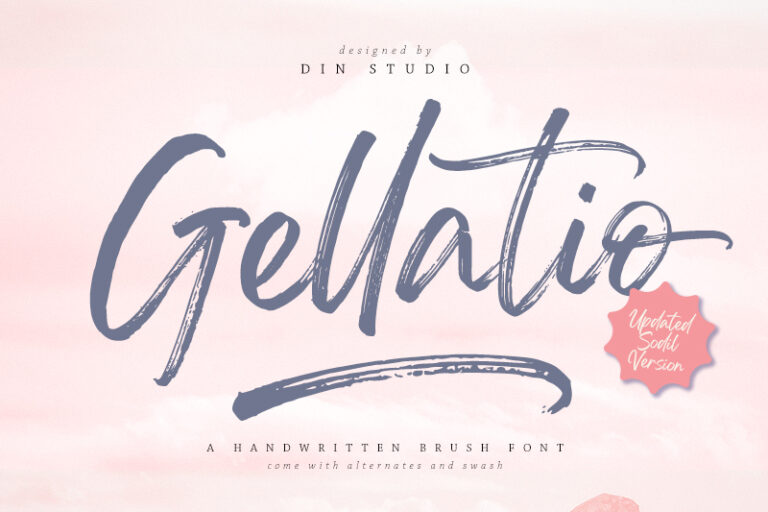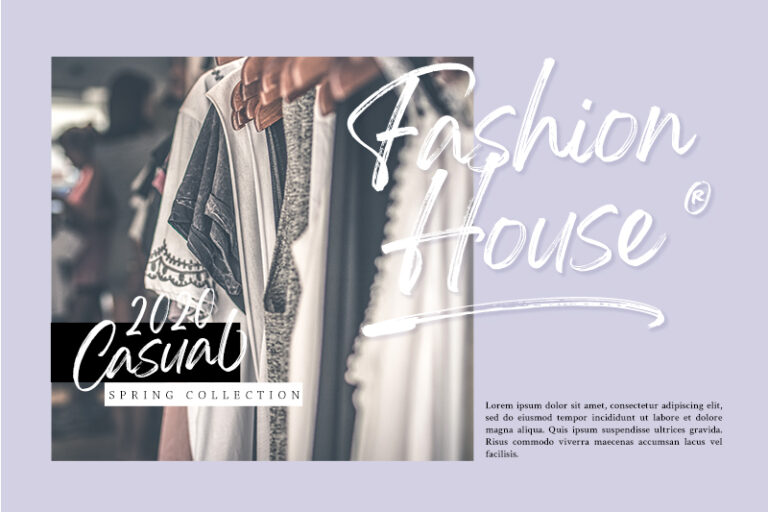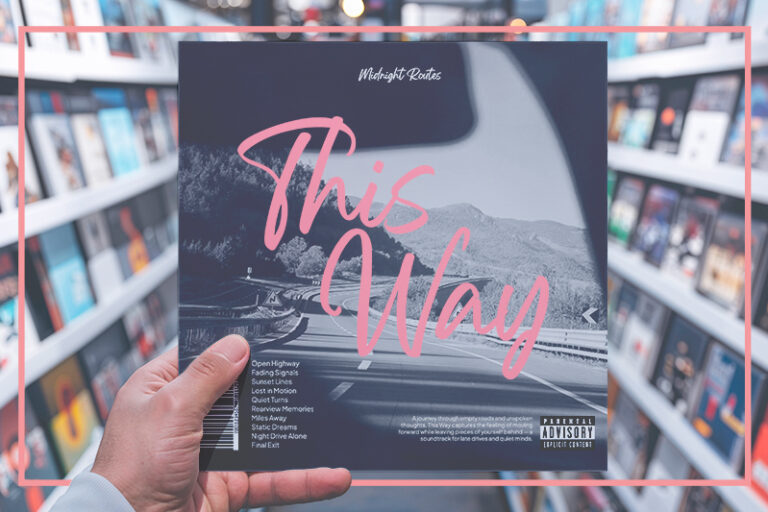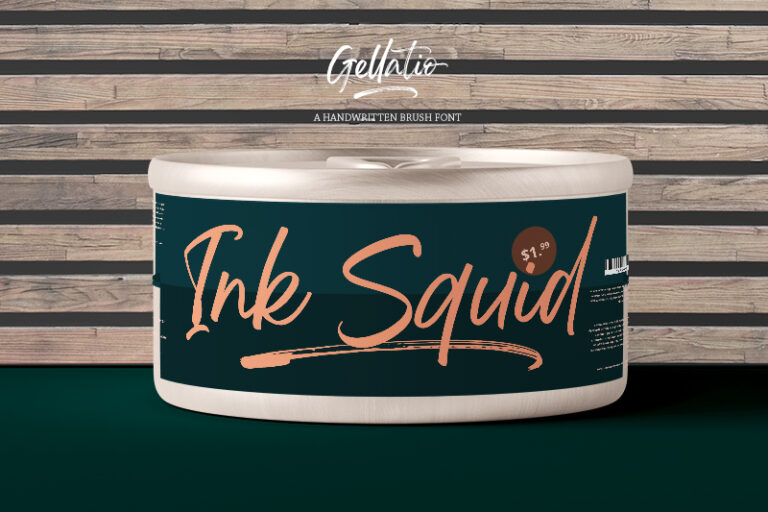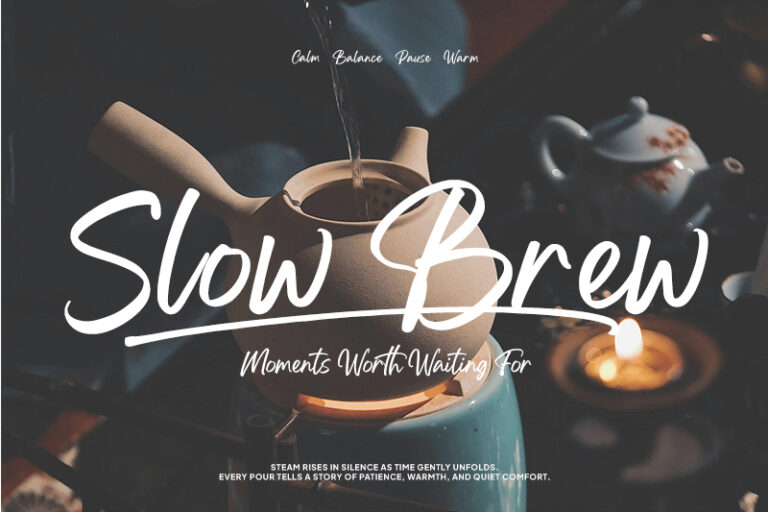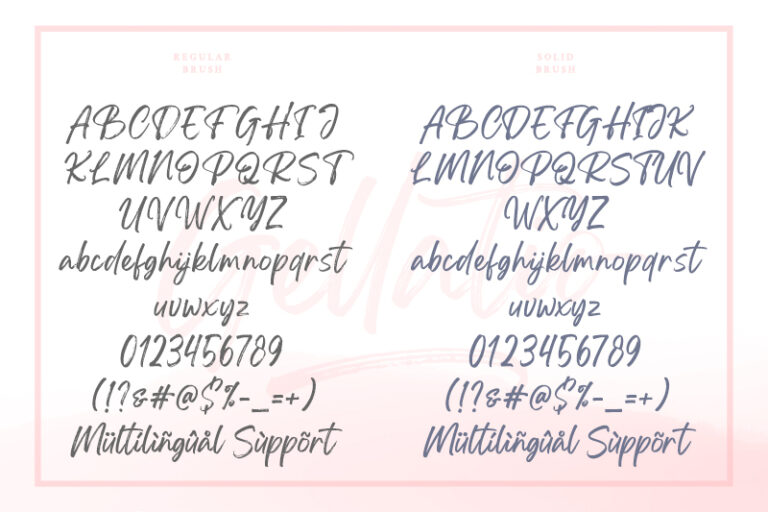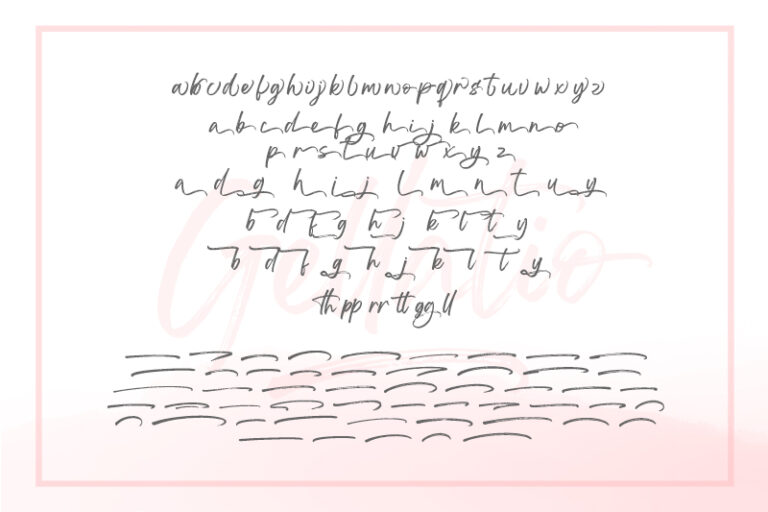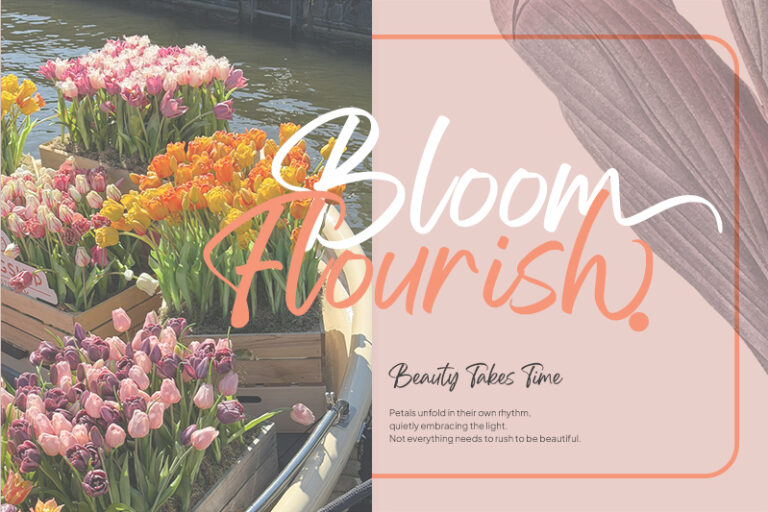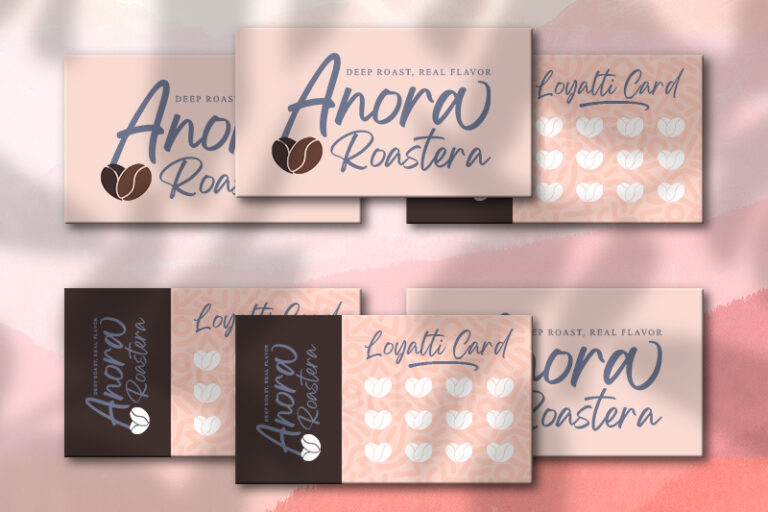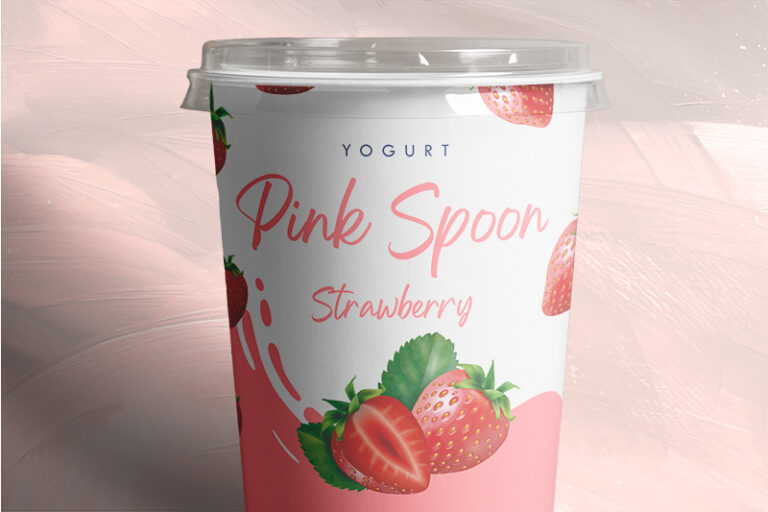
Gellatio – Brush Font
Gellatio Regular
Gellatio is a beautiful handwritten font created with a natural hand brush. It was designed to look as much like a natural handwritten script as possible. This font will enhance the aesthetic appeal of your design projects. Gellatio brush font includes all uppercase and lowercase letters, numerals, ligatures, swashes, and punctuation. It is ideal for any design, including branding, fashion, printed templates, quotes, weddings, and more.
Features include:
- 88 Beautiful Alternates
- 6 Beautiful Ligatures
- 52 Swashes
- Numerals and Punctuations (OpenType Standard)
- Full Supports